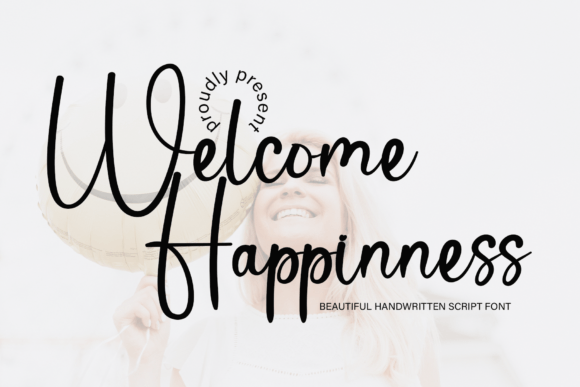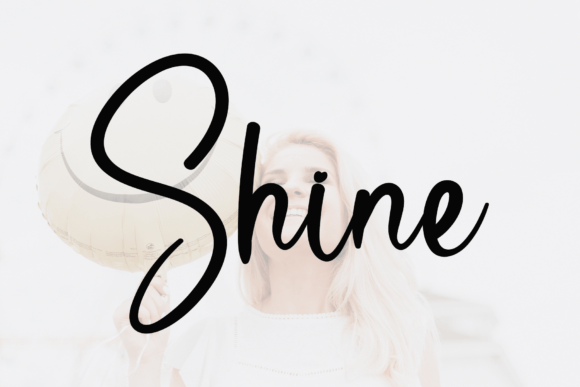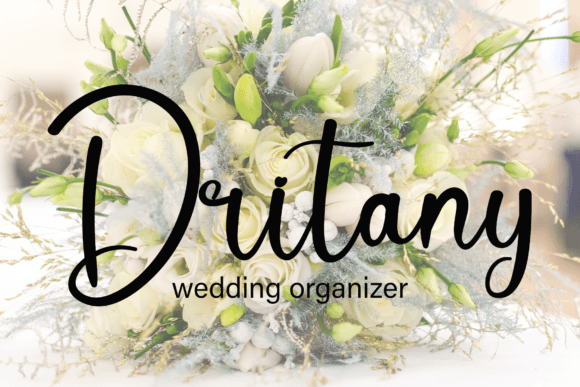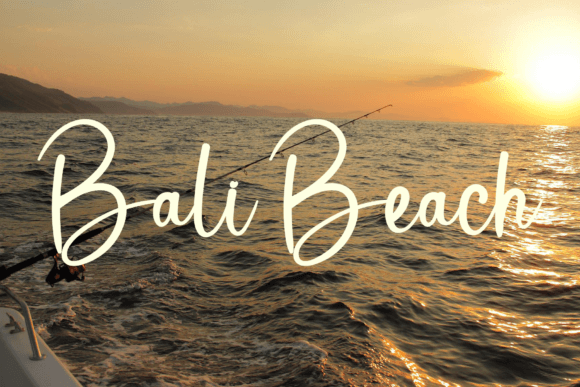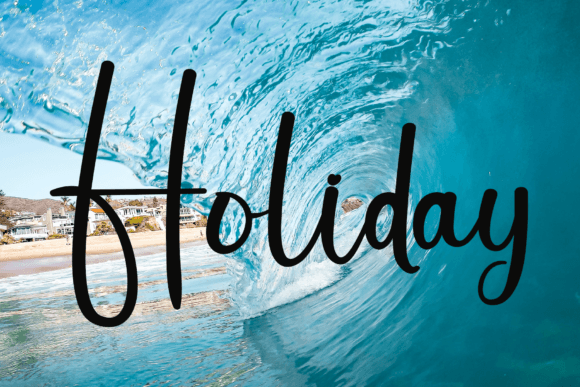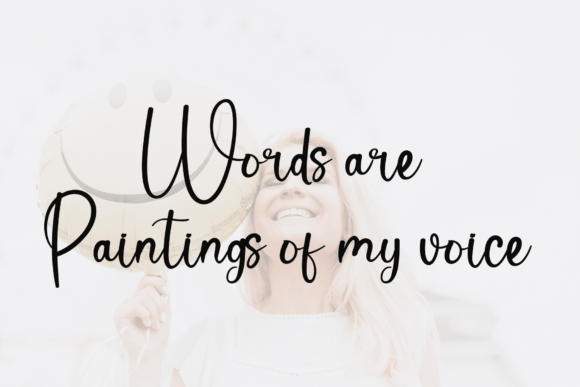
About Welcome Happinness Font
**Welcome Happiness Font: Sweet and Beautiful Handwritten Luxury**
Introducing Welcome Happiness, a sweet and beautiful handwritten font that brings a touch of luxury to your design projects. With characters that dance gracefully along the baseline, this font adds a spark of elegance to any creative endeavor you wish to create. Here’s why Welcome Happiness is the perfect choice for infusing your designs with a sense of sweetness and luxury:
**Graceful Elegance:** Welcome Happiness exudes graceful elegance with its beautifully handwritten characters that flow along the baseline.
**Luxurious Appeal:** The font adds a luxurious touch to your designs, making it ideal for premium branding, high-end packaging, and upscale projects.
**Sweet and Beautiful:** As the name suggests, Welcome Happiness is both sweet and beautiful, making it a charming choice for conveying emotions and messages with style.
**Dancing Characters:** The characters in this font seem to dance along the baseline, creating a sense of movement and liveliness in your text.
**Versatile Application:** Whether you’re working on branding, packaging, invitations, social media graphics, or any creative project, Welcome Happiness is versatile and adaptable.
**Unique and Captivating:** Welcome Happiness’s unique style captivates viewers and adds an element of individuality and charm to your designs.
**Sophisticated Design:** This font is designed with sophistication in mind, ensuring that your designs exude an air of refinement and grace.
**High-End Branding:** Elevate your brand with Welcome Happiness, creating a premium look and feel that resonates with discerning customers.
**Attention-Grabbing:** The font’s attention-grabbing quality ensures that your designs stand out and leave a lasting impression.
**Expressive Typography:** Welcome Happiness allows for expressive typography, enabling you to convey emotions and messages with grace and beauty.
**Inviting Creativity:** It invites creativity, making it an excellent choice for designers looking to explore innovative design concepts.
**User-Friendly:** While it exudes sophistication, Welcome Happiness remains user-friendly, ensuring that designers of all levels can work with it effectively.
**Personalized Touch:** Use Welcome Happiness to add a personalized touch to your designs, creating a sense of connection and authenticity.
**Versatile Design Tool:** Welcome Happiness is a versatile design tool that can be adapted to fit various creative visions, ensuring flexibility in your projects.
**Unique Identity:** The font gives your text a unique identity, making it easily recognizable and memorable.
**Visual Harmony:** Welcome Happiness creates visual harmony in your designs, with each character complementing the next to form a cohesive and beautiful composition.
**Elegant Simplicity:** It embodies elegant simplicity, making it suitable for a wide range of design concepts, from minimalistic to intricate.
**Stand Out with Style:** Use Welcome Happiness to stand out with style, making your work instantly recognizable and admired.
**Design Confidence:** Design with Welcome Happiness confidently, knowing that you’re working with a font that adds elegance and allure to any project.
**Charming Character:** The font’s charming character infuses your text with personality and sophistication, creating a memorable and endearing impression.
**Unleash Creativity:** Unleash your creativity with Welcome Happiness and explore the endless possibilities it offers for conveying elegance and beauty.
**Classic and Contemporary:** The font seamlessly bridges the classic and contemporary, making it suitable for various design themes and aesthetics.
**Create Impact:** Create a strong impact with Welcome Happiness, making your designs visually striking and emotionally resonant.
**Timeless Elegance:** Welcome Happiness captures a timeless sense of elegance that adds a sense of prestige to your designs.
**Elegance with Ease:** With Welcome Happiness, you can effortlessly infuse elegance into your work, creating designs that impress and inspire.
**Design Brilliance:** Design brilliance with Welcome Happiness, and let it elevate your creative projects to new heights of sophistication and style.
**Invigorate Your Brand:** Invigorate your brand with the elegance of Welcome Happiness, creating a brand identity that communicates sophistication and grace.
**Elegant Simplicity:** Welcome Happiness’s elegant simplicity ensures that your designs exude sophistication without unnecessary complexity.
**Memorable Elegance:** Welcome Happiness leaves a memorable impression, making your designs unforgettable and cherished.
**Inspire Awe:** Use Welcome Happiness to inspire awe and admiration in your audience, creating designs that evoke a sense of wonder and beauty.
**Sweet Serenity:** The font brings a sense of sweet serenity to your text, making it perfect for conveying heartfelt messages and emotions.
**Aesthetic Pleasure:** Design with Welcome Happiness for aesthetic pleasure, creating visuals that are as delightful to look at as they are to read.
**Luxe Beauty:** The luxurious beauty of Welcome Happiness adds a sense of opulence and grandeur to your designs.
**Poetic Elegance:** This font’s poetic elegance allows you to transform your text into a work of art, with each character contributing to the overall aesthetic.
**Romantic Appeal:** Use Welcome Happiness for romantic designs that radiate love and affection, making it ideal for wedding invitations, love letters, and more.
**Emotional Connection:** Welcome Happiness fosters an emotional connection with your audience, making your designs resonate on a deeper level.
**Innovative Typography:** Explore innovative typography with Welcome Happiness, creating designs that push the boundaries of visual expression.
**Timeless Beauty:** The timeless beauty of this font ensures that your designs remain relevant and captivating for years to come.
**Design Magic